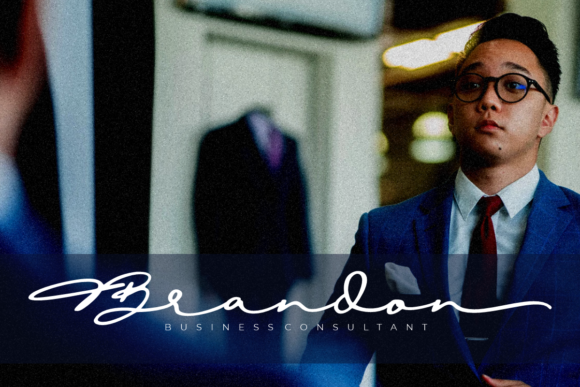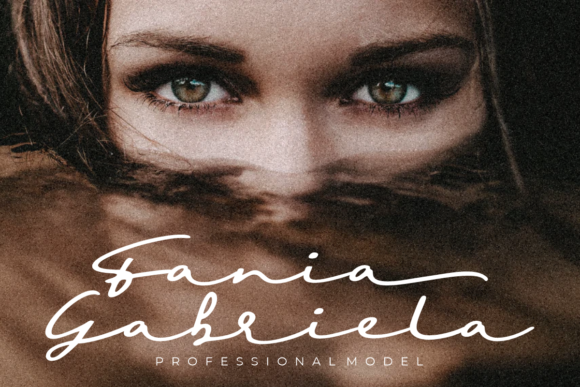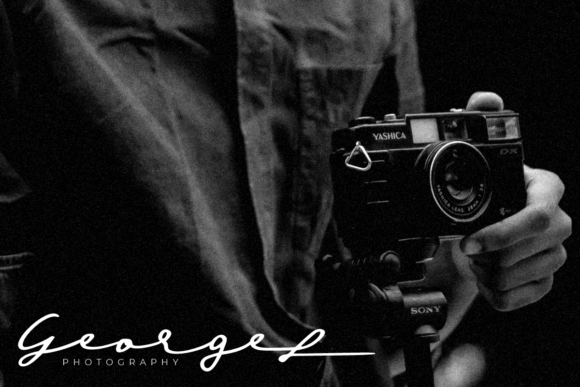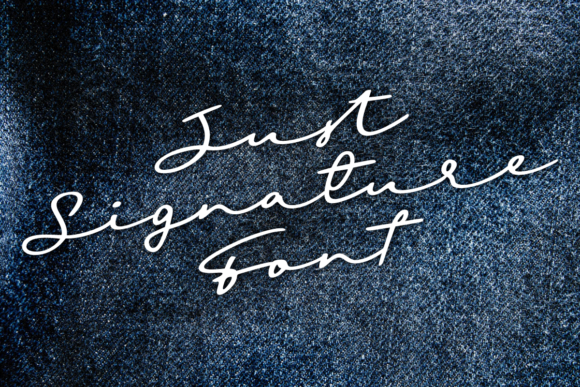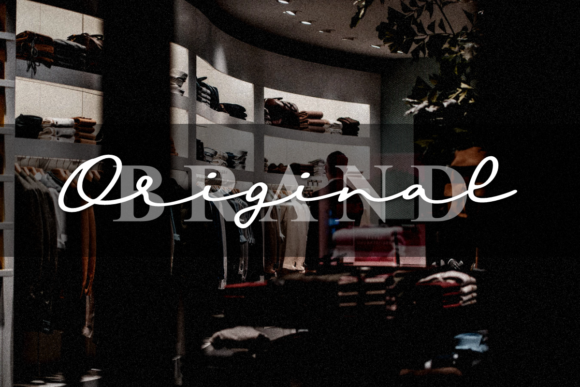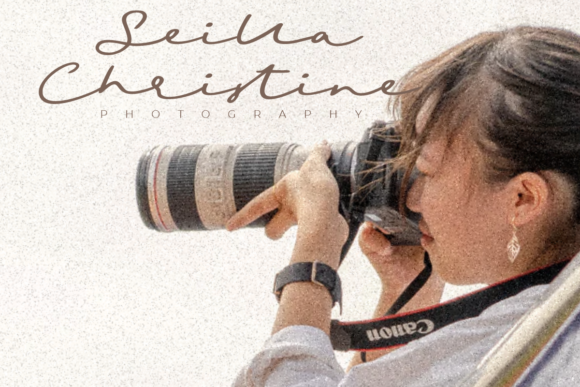
Introduction to Sighnora Font Font
Fonts play a crucial role in design, and the Sighnora Font font is a typeface that brings both character and versatility to any project. Whether you’re working on a branding project, a website, or a print design, the Sighnora Font font offers a unique style that can elevate your work.
Sighnora is a signature style font with a natural and elegant look.
This font is perfect for weddings, watermarks, branding, business, business cards, product logos, etc This font is PUA encoded which means you can access all of the glyphs and swashes with ease.
Key Features of Sighnora Font Font
Why Choose Sighnora Font Font?
The Sighnora Font font is more than just a typeface – it’s a design tool that helps you communicate your message with style and clarity. Its unique character set and versatile design make it suitable for a wide range of applications, from elegant invitations to bold headlines.
With its carefully crafted letterforms and balanced proportions, the Sighnora Font font ensures readability and visual appeal across all mediums.
What makes Sighnora Font font special?
The Sighnora Font font stands out with its unique design, exceptional readability, and versatility across various design applications.